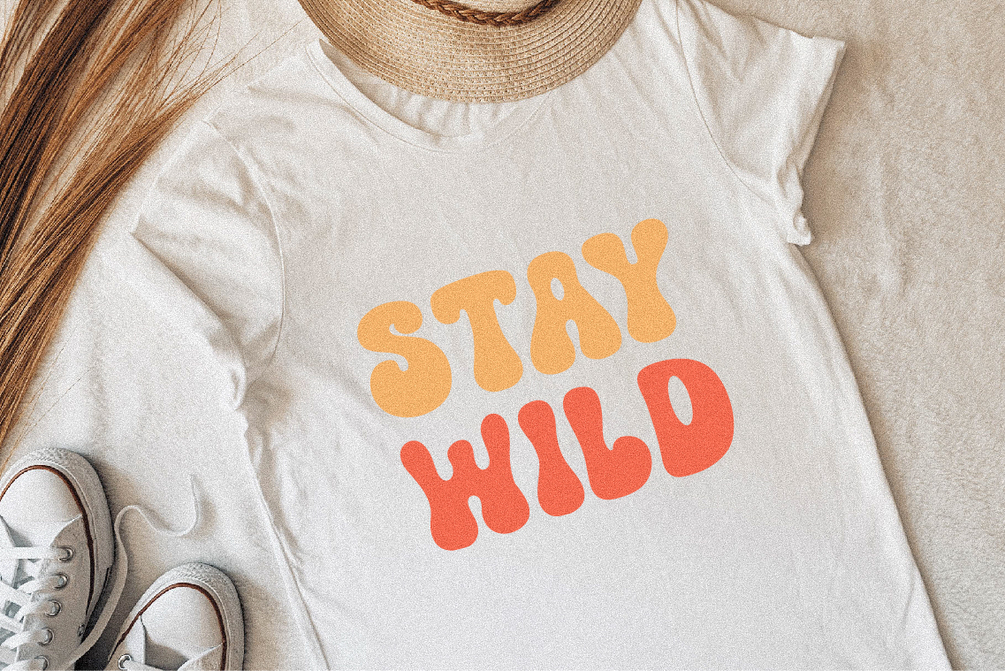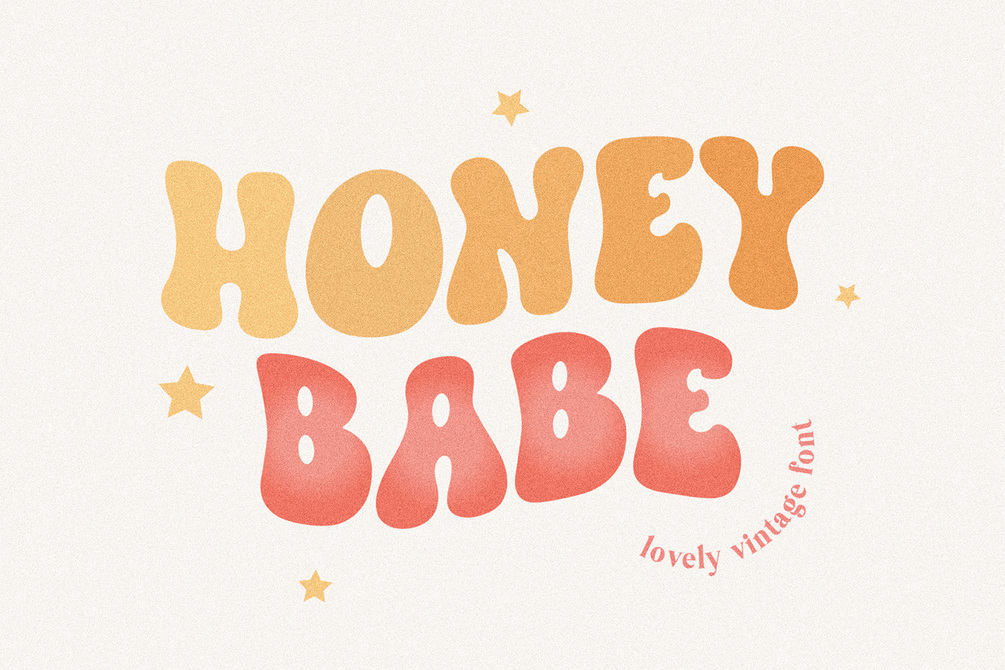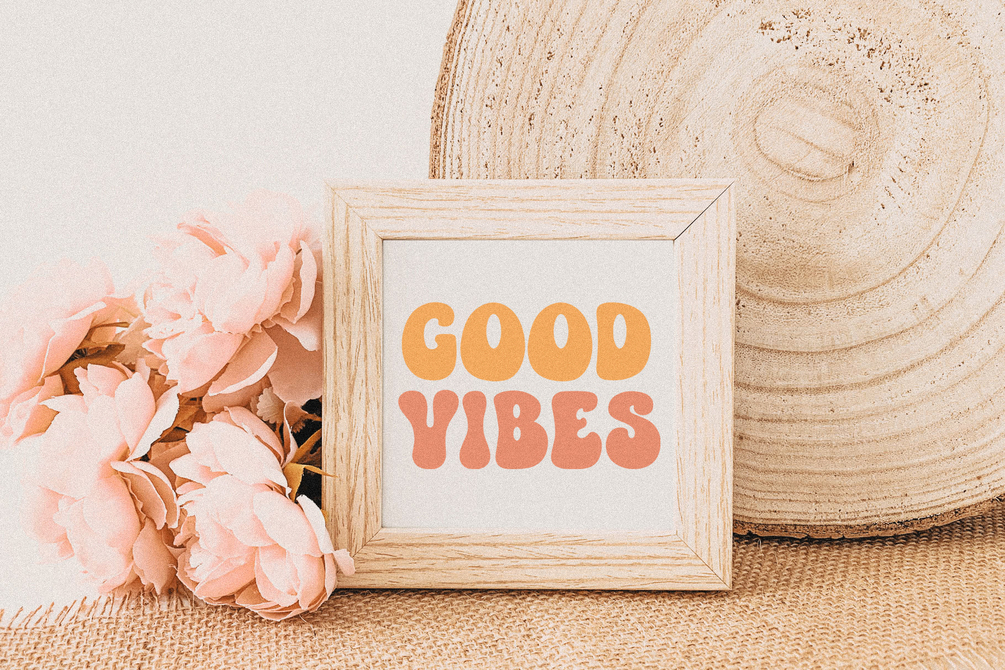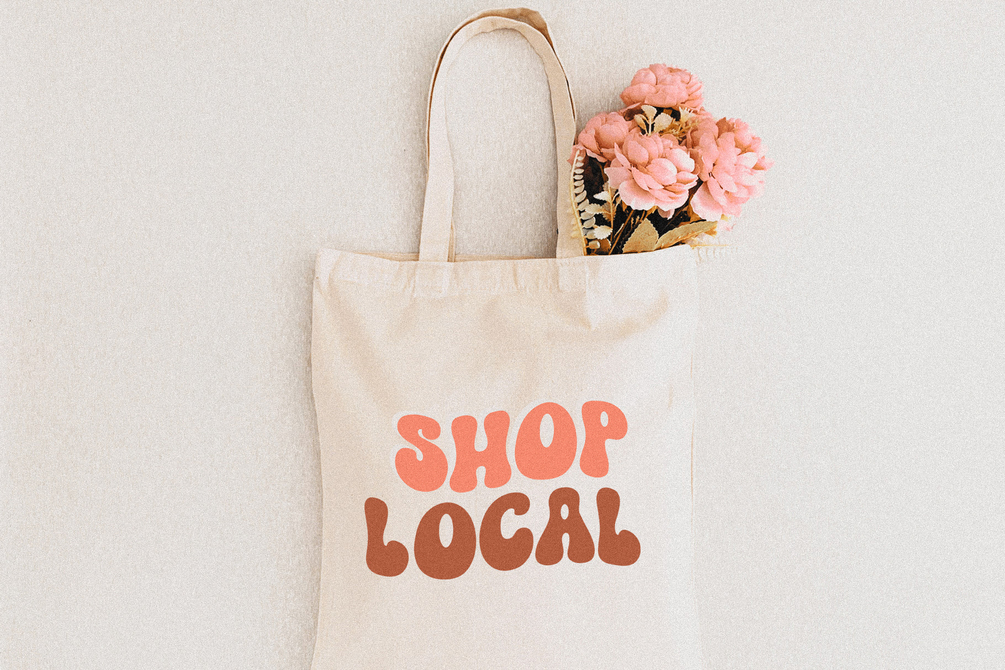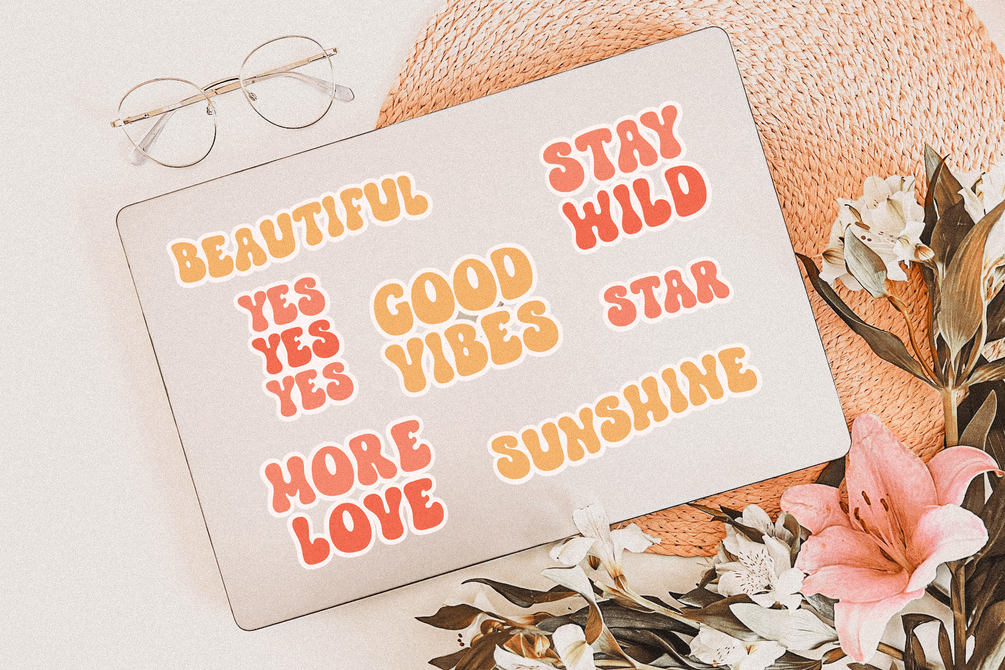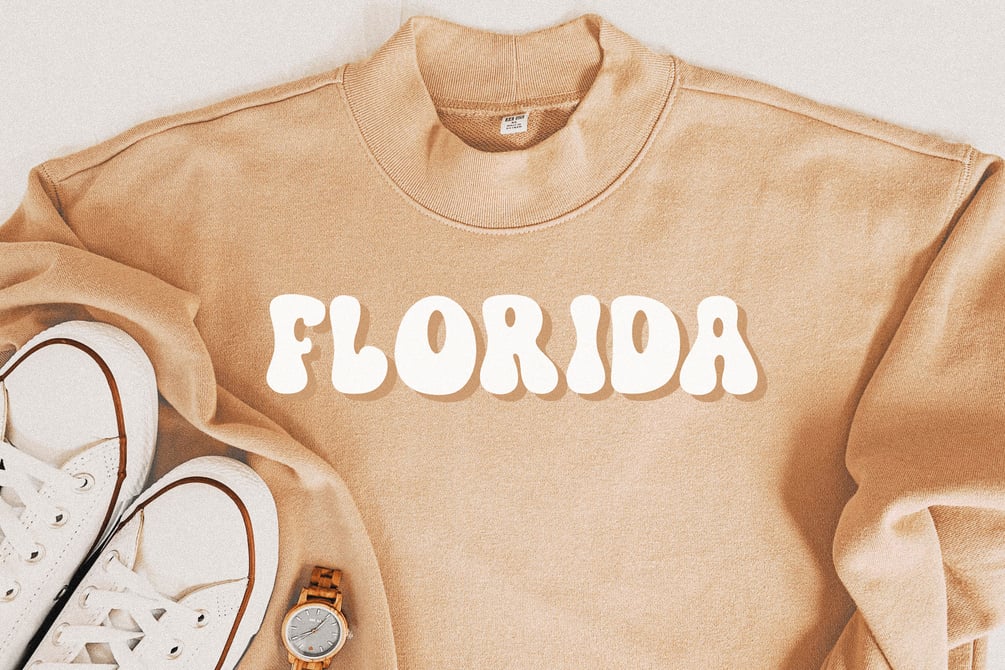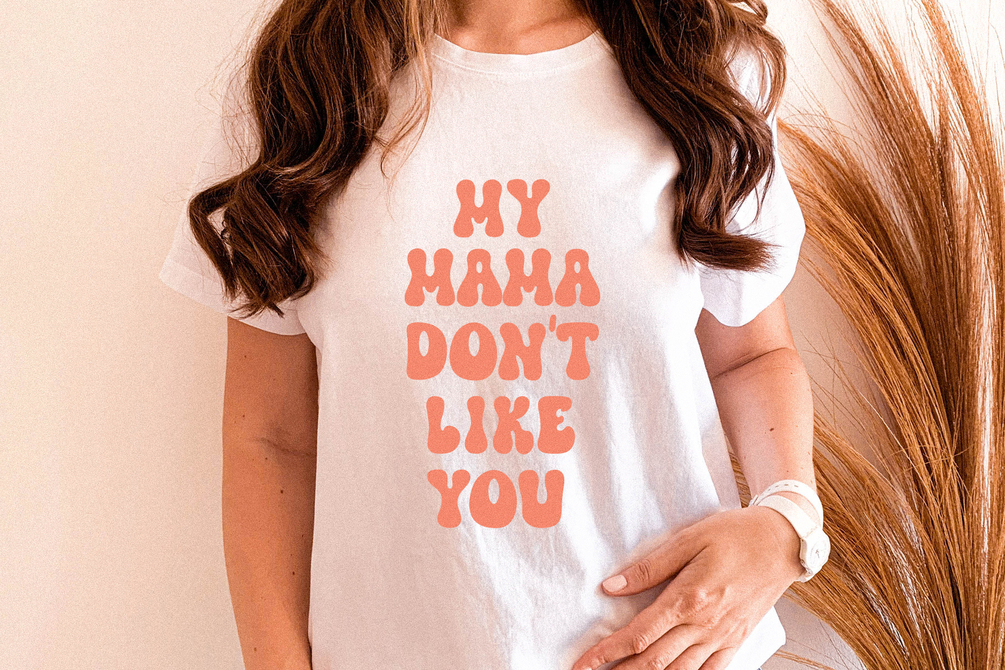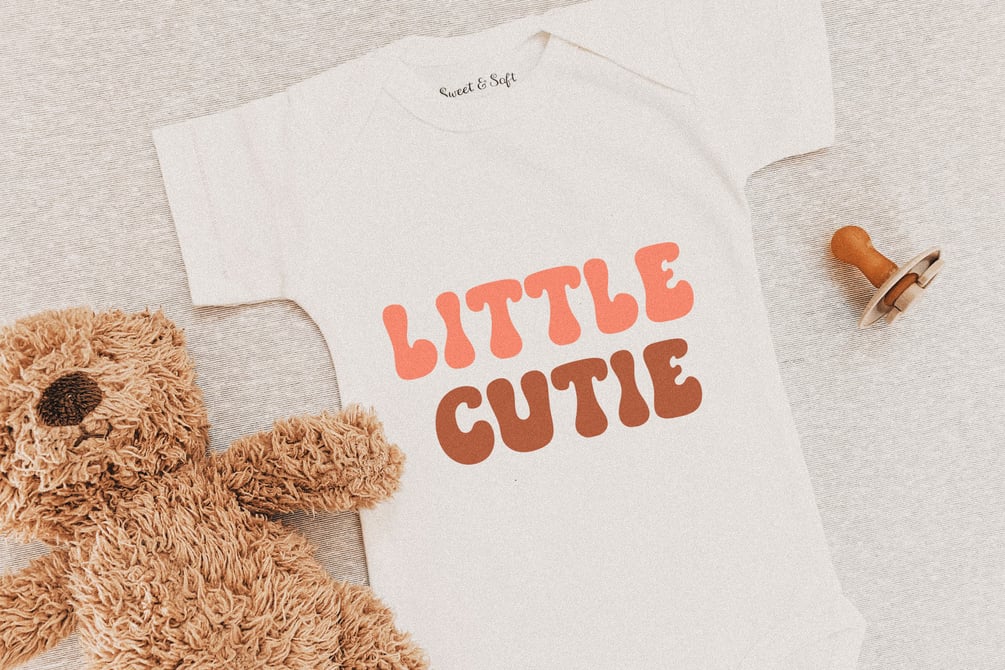
Honey Babe Cute Retro Font
Honey Babe a groovy handwritten font. Perfect to create stickers, quotes, t-shirt designs, mug designs, prints, cricut projects, sublimation designs and svg files.